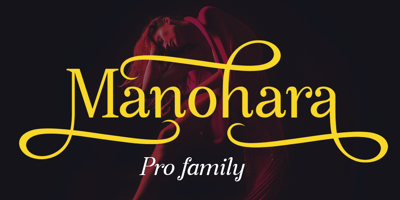
Manohara Pro
Manohara Pro font
Manohara Pro Font Family was designed by Marwah and published by BBA Key. Manohara Pro contains 3 styles and family package options. Introducing Manohara Pro Family, a new modern font. Manohara Pro is perfect for stationery, logos, t-shirts, paper, print designs, website headers, photo frames, leaflets, music covers, posters, image sliders and more.